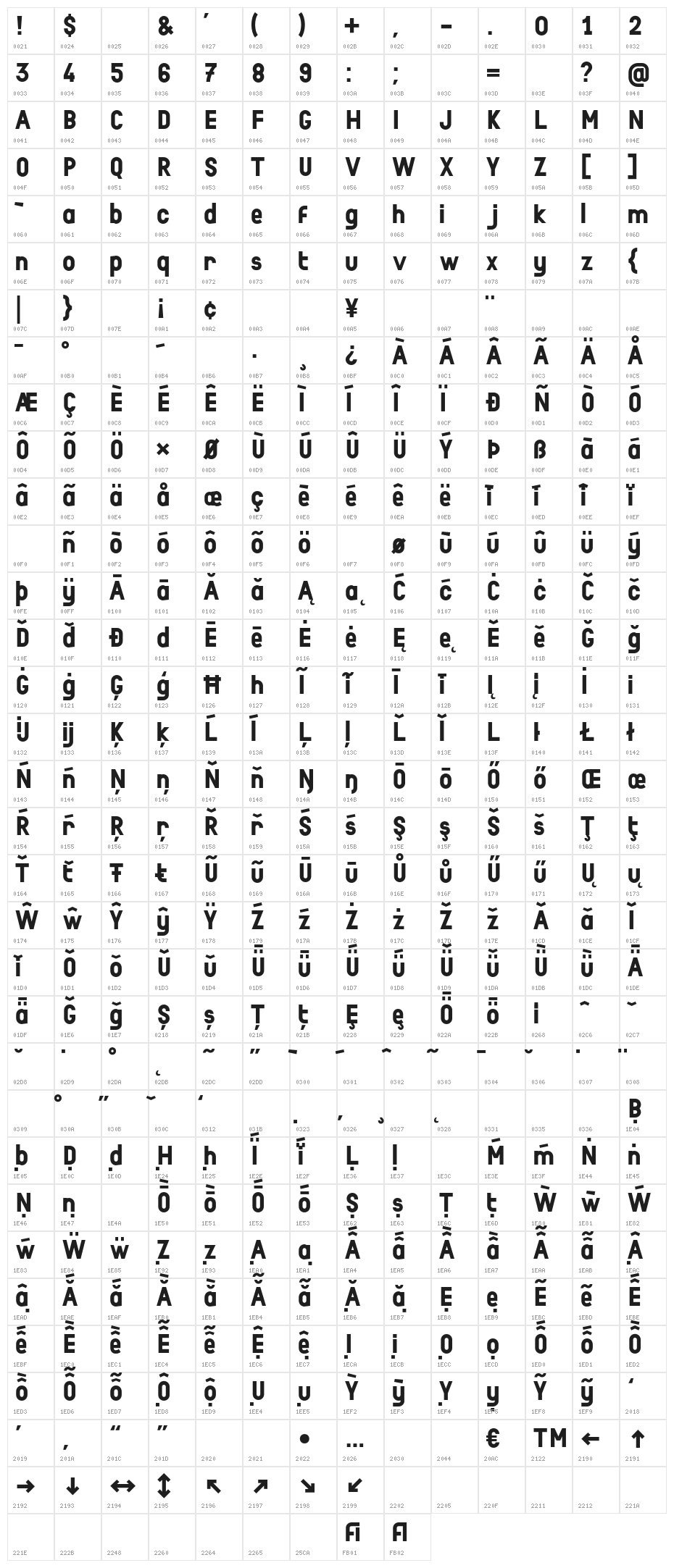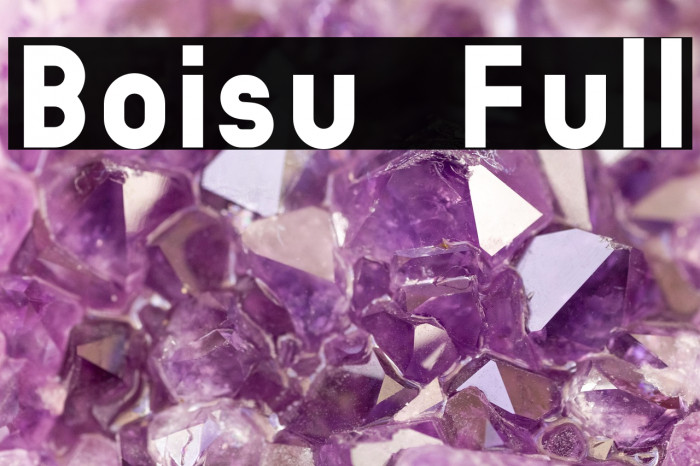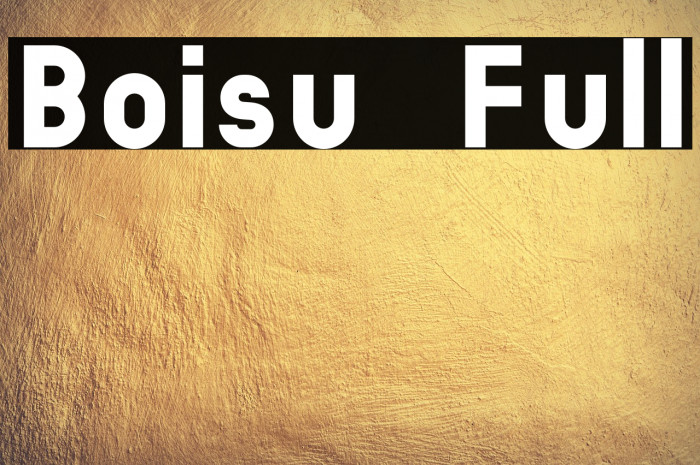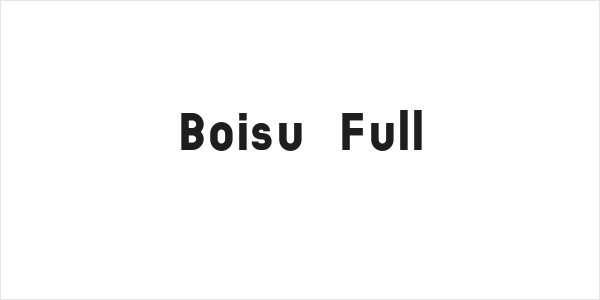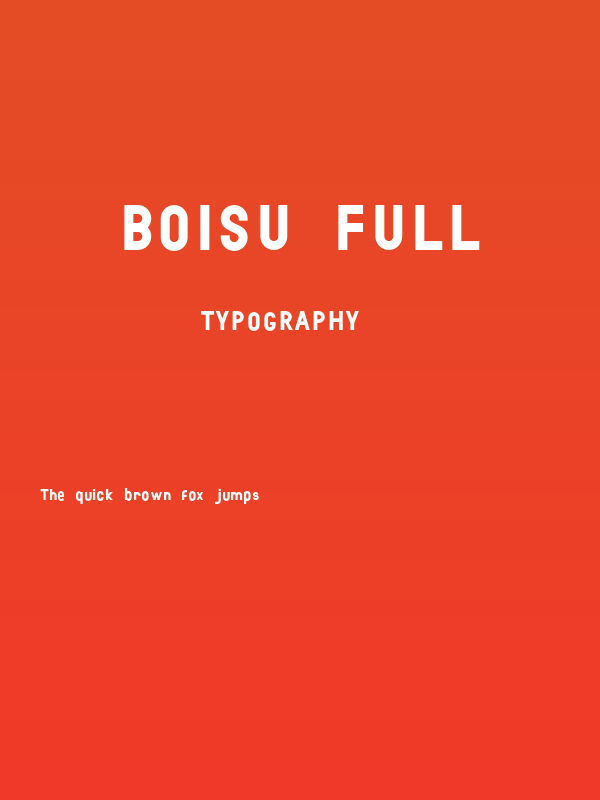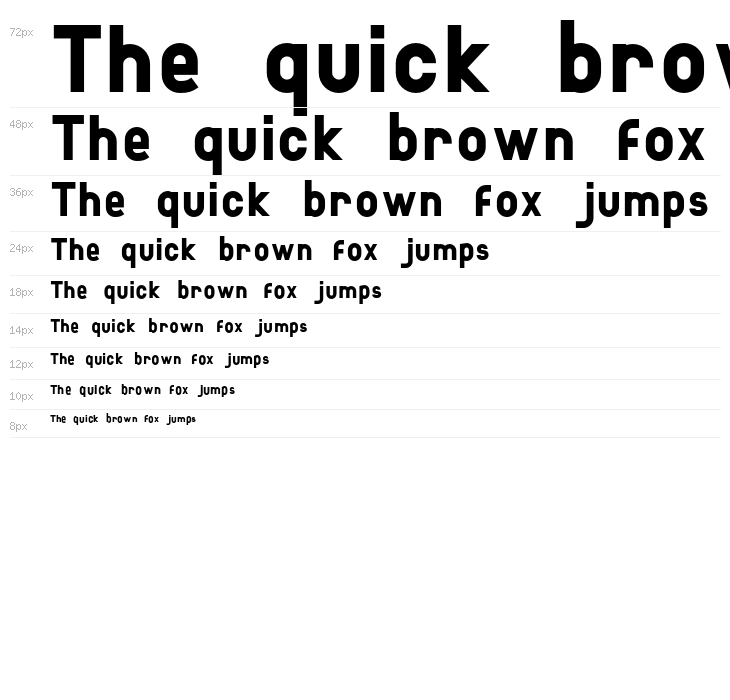
Boisu Full Font
Boisu Full Description
This font features a bold and robust design with clean, straight lines and a modern aesthetic. The uppercase and lowercase letters maintain a consistent thickness, providing a uniform appearance across the alphabet. The numerals are clear and easily distinguishable, making them suitable for various applications. Special characters are included, though some are marked as 'NO GLYPH', indicating missing symbols. The overall style is contemporary, with a focus on readability and simplicity, making it versatile for different design needs.
| Proposed Projects | Ideal for branding, headlines, posters, and digital media where a strong, modern presence is desired. |